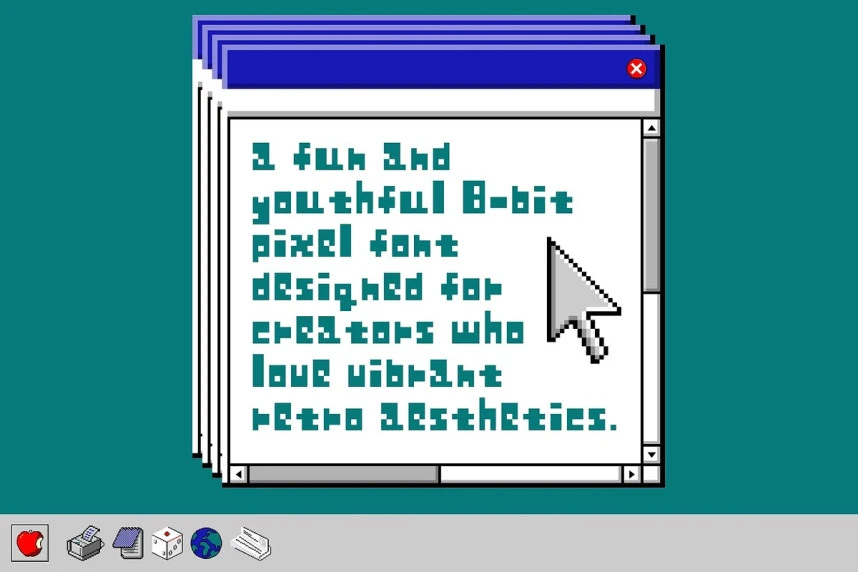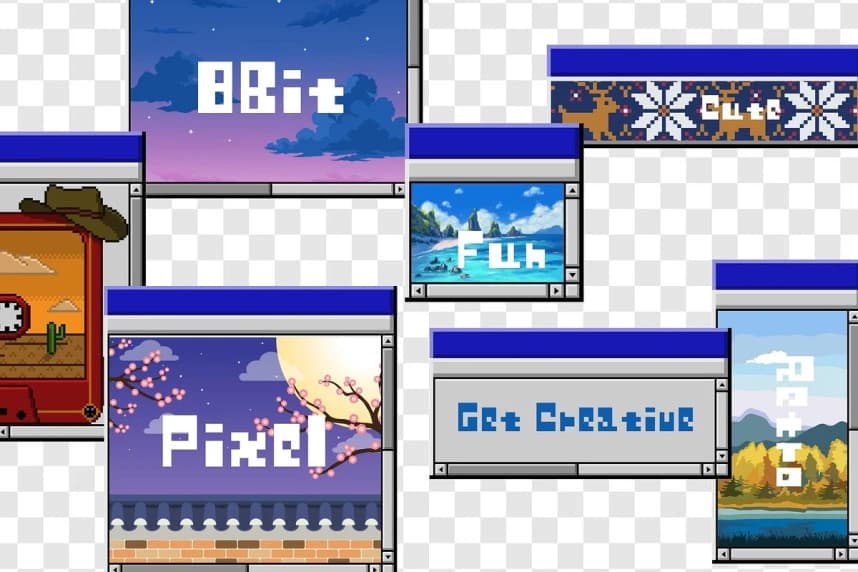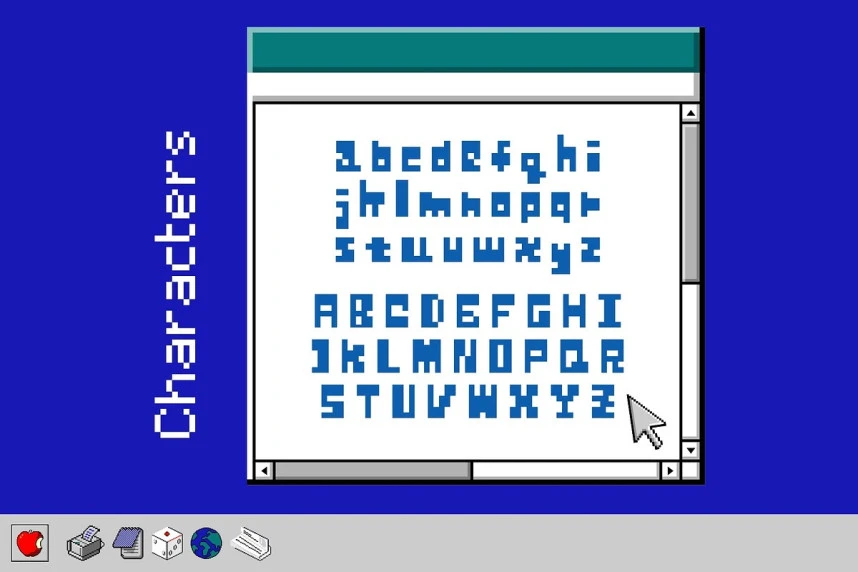
Start Signal Font
Start Signal Font is a fun and youthful 8-bit pixel font designed for creators who love vibrant retro aesthetics. With crisp pixel edges, playful character shapes, and an energetic digital personality, this font brings classic arcade charm into modern pixel-styled projects.